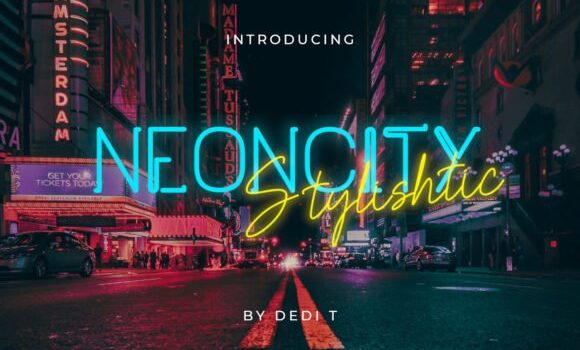
neoncity
Neoncity Font – Free Download Introduction to Neoncity Font Neoncity is a bold and fresh display font with a vintage feel. 📸 Preview Gallery 6 images 📌 Product Name Neoncity Font 👤 Author miracleboykenzie 📂 Category Explore ⬇️ Download Neoncity